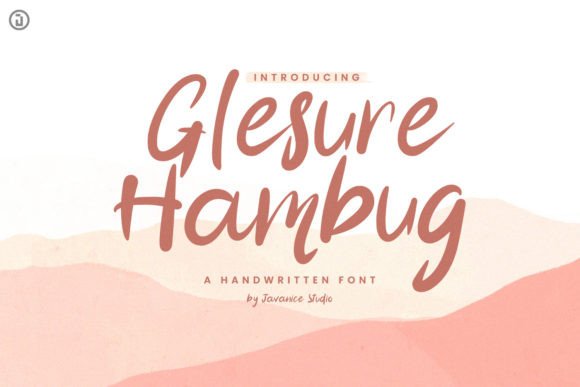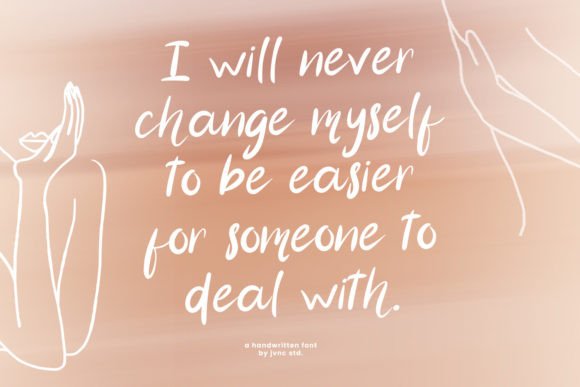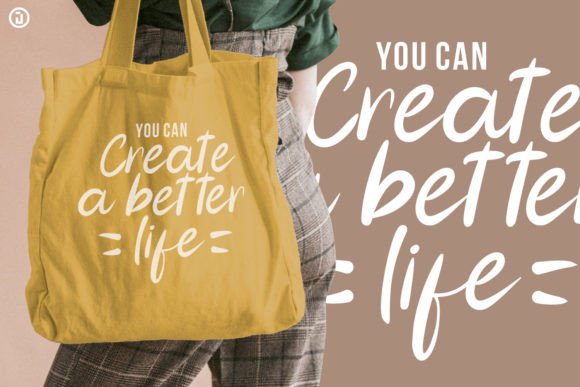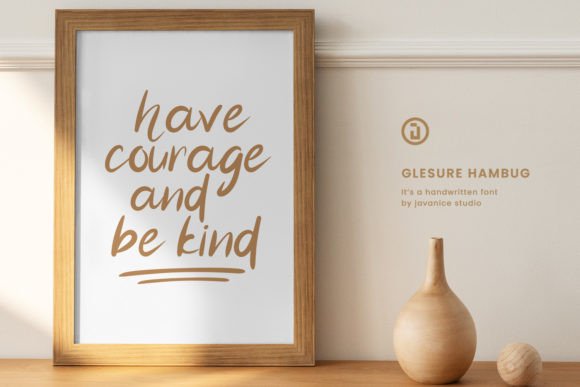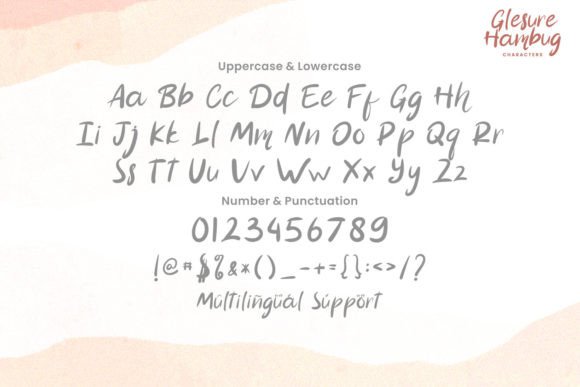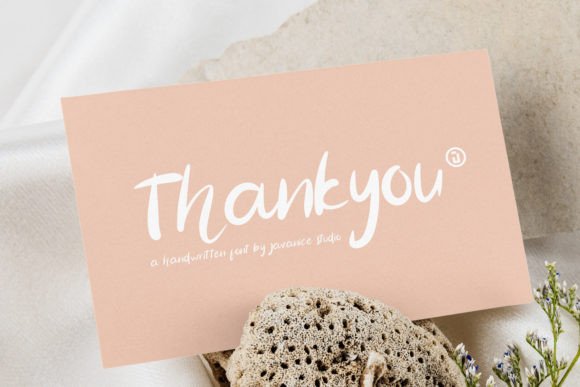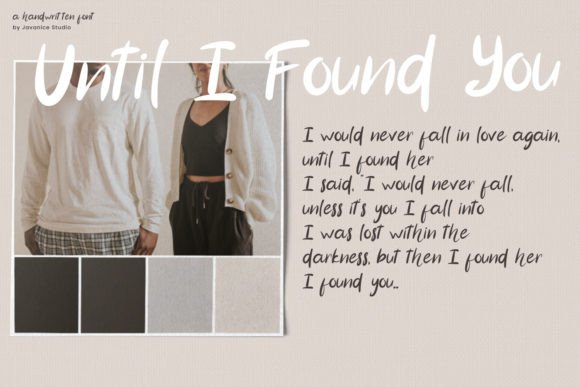
About Glesure Hambug Font
**Glesure Hambug** is a delightful handwritten font designed with a friendly and lovely style. This font is versatile and well-suited for a variety of applications, making it an excellent choice for your diary planner, journal, and various projects. It adds a warm and approachable touch to everyday items and special occasions, making it ideal for back-to-school materials, wedding-related designs, party decorations, invitations, festivals, posters, blogs, clothing items, child-related designs, greeting cards, social media posts, and more.
The friendly and lovely style of **Glesure Hambug** makes it a perfect fit for personal projects like diaries and journals. Its handwritten appearance adds a touch of warmth and personality, making your daily entries more inviting.
In back-to-school materials, this font becomes a playful and engaging choice. It can be used in educational resources, worksheets, and other materials to create a friendly and approachable atmosphere for students.
For wedding-related designs, party invitations, and festival posters, **Glesure Hambug** adds a charming and whimsical element. Its lovely style enhances the visual appeal of these materials, making them stand out and evoke a joyful mood.
In blogs and social media posts, the font’s friendly touch makes it suitable for creating engaging and relatable content. It contributes to a casual and approachable vibe, perfect for connecting with your audience.
For clothing designs and child-related projects, **Glesure Hambug** brings a playful and cute aesthetic. Its handwritten charm is well-suited for designs targeting a younger audience or projects that aim to convey a lighthearted and fun vibe.
Adding **Glesure Hambug** to your fonts library is a great way to bring a friendly and inviting touch to your DIY projects. Whether you’re working on personal or professional designs, let this font be the element that breathes life into your creations.